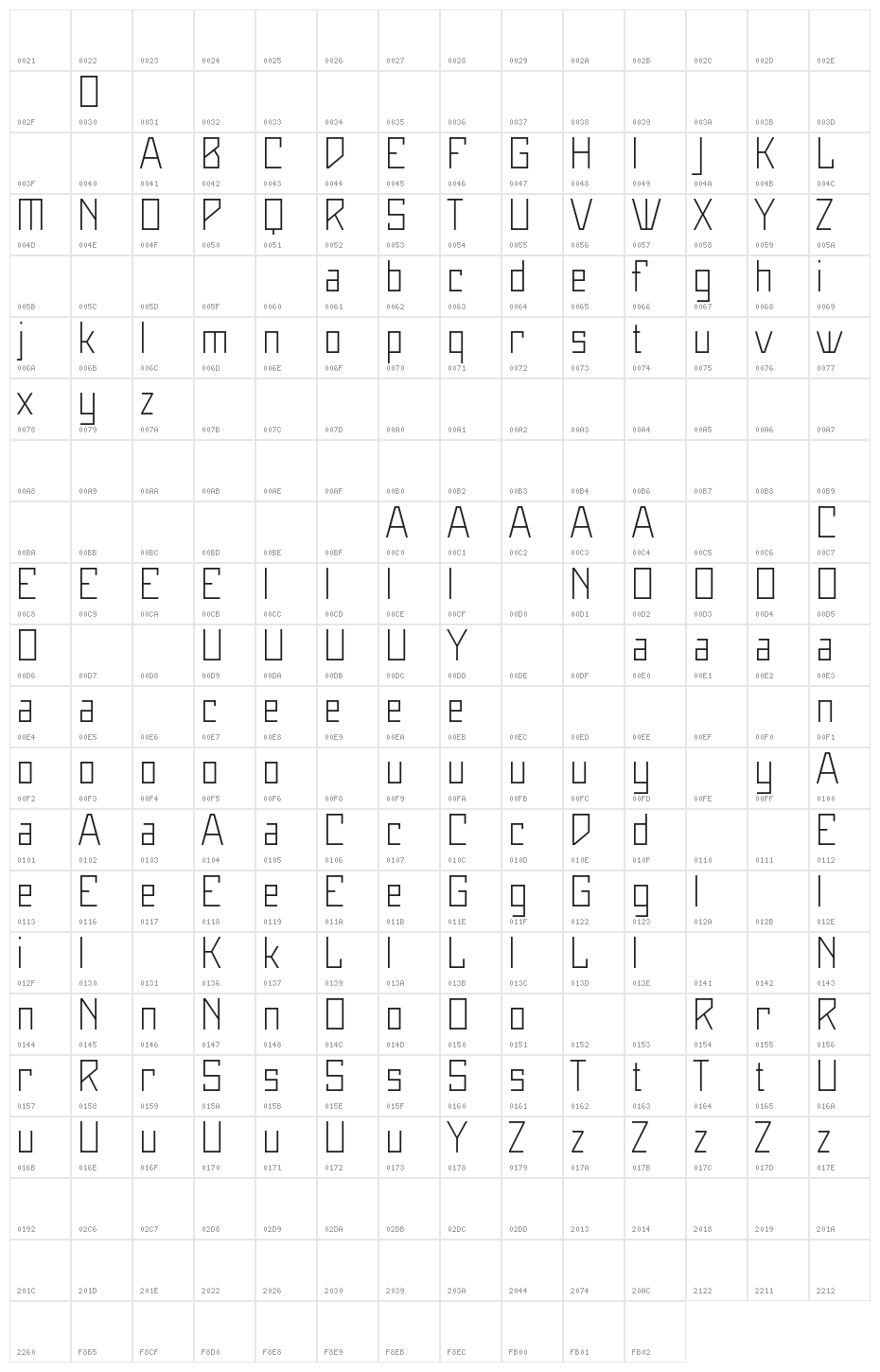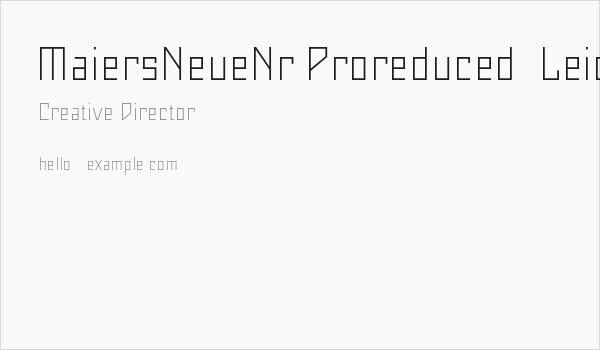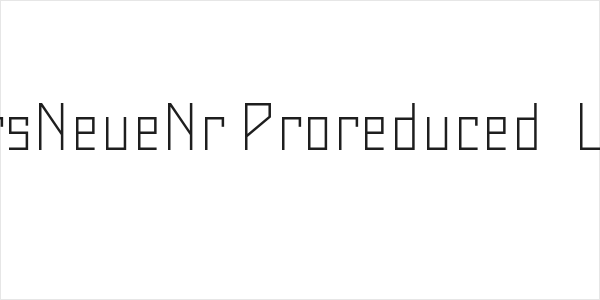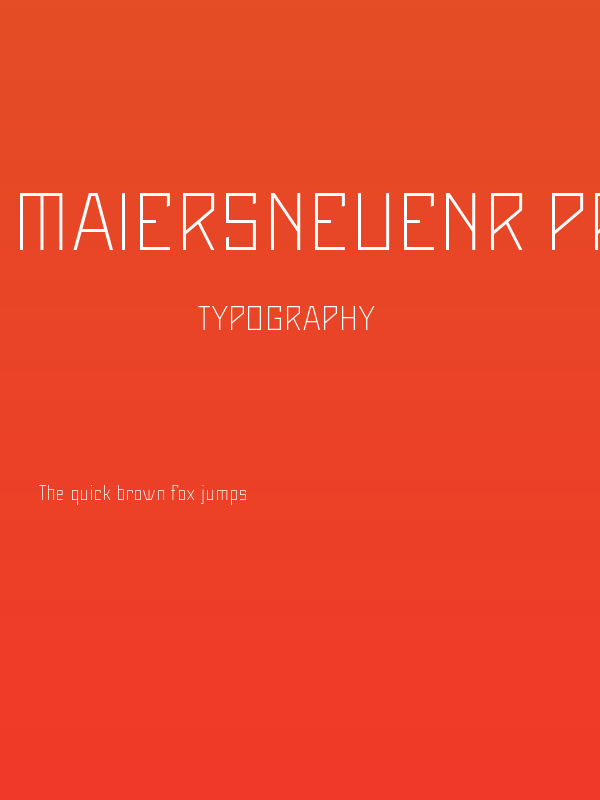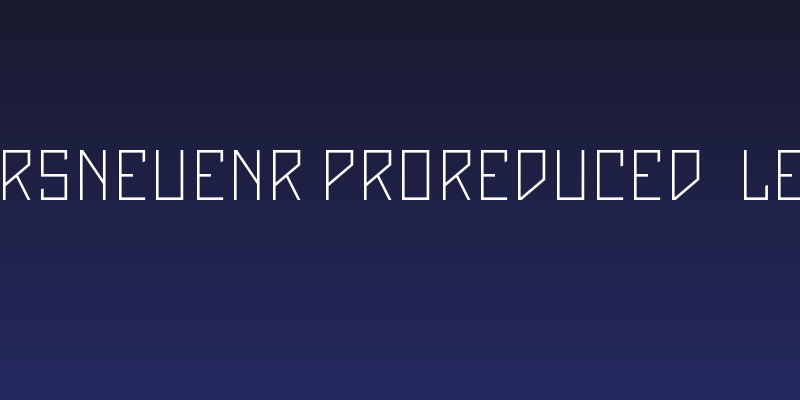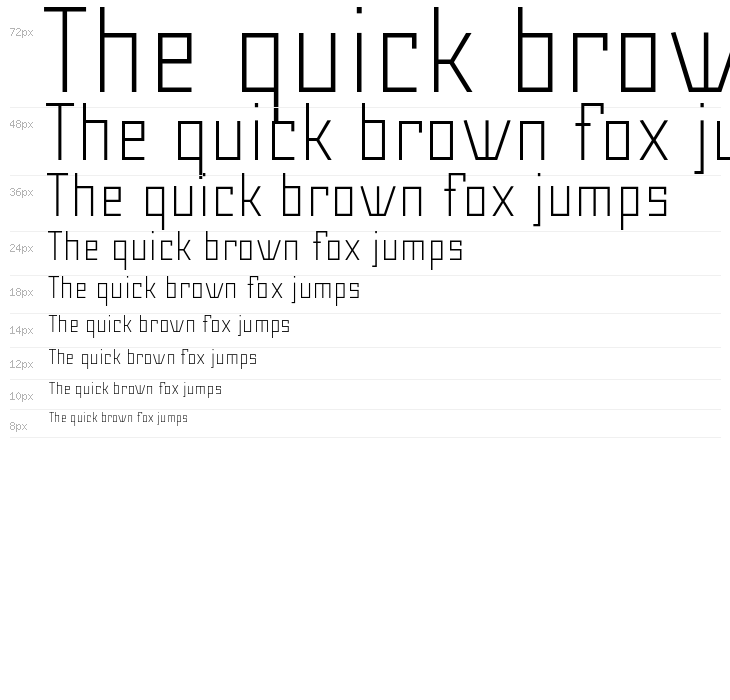
MaiersNeueNr.Proreduced-Leicht Font
MaiersNeueNr.Proreduced-Leicht Description
This font exhibits a geometric and minimalist design, characterized by its clean lines and angular shapes. The uppercase and lowercase letters maintain a consistent height, giving a uniform appearance. The strokes are thin and evenly weighted, contributing to a modern and sleek aesthetic. The characters are constructed with straight lines and sharp angles, creating a sense of precision and order. The numerals and special characters follow the same design principles, ensuring cohesion across all glyphs. This font's simplicity and clarity make it highly legible, even at smaller sizes.
| Use Case | Headlines, Logos, Digital interfaces |
| Proposed Projects | Ideal for modern branding, tech-related designs, minimalist posters, and digital interfaces. |